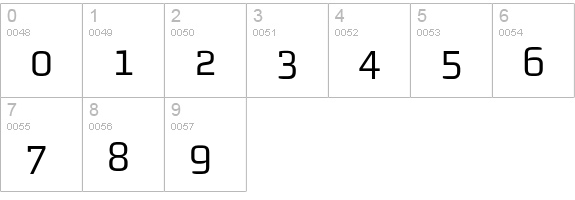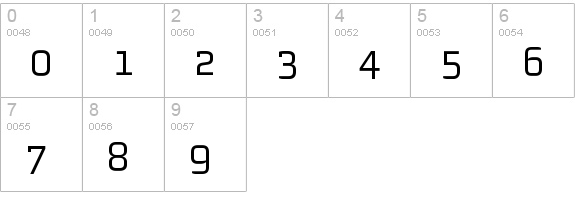
MorganAvec RegularExpert Font Details
Introducing MorganAvec RegularExpert font, a versatile and stylish typeface that effortlessly blends modern elegance with timeless sophistication. This font is perfect for adding a touch of class to any design project, from branding to editorial layouts to signage. What sets MorganAvec RegularExpert font apart is its impeccable craftsmanship and attention to detail. Each letter is meticulously crafted to create a seamless flow of characters that exude professionalism and refinement. The clean lines and balanced proportions make this font easy to read while still maintaining a sense of flair and personality. And the best part? MorganAvec RegularExpert font is completely free to download at FontsMarket.com! Whether you're a designer looking to elevate your creations or a business owner in need of a polished visual identity, this font is a must-have addition to your toolkit. Download it today and discover the endless possibilities that MorganAvec RegularExpert font can bring to your projects.